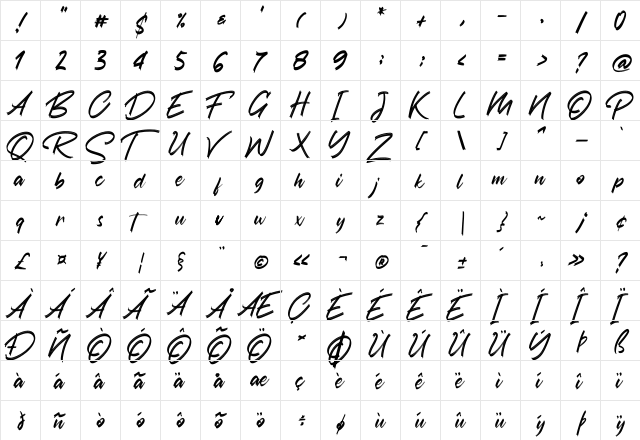
Austhind Regular
Design Context for Austhind Typeface
Austhind is a composed and adaptable typeface that performs quietly and consistently across a wide range of design contexts. The delicate stroke weight brings airiness and refinement to layouts.